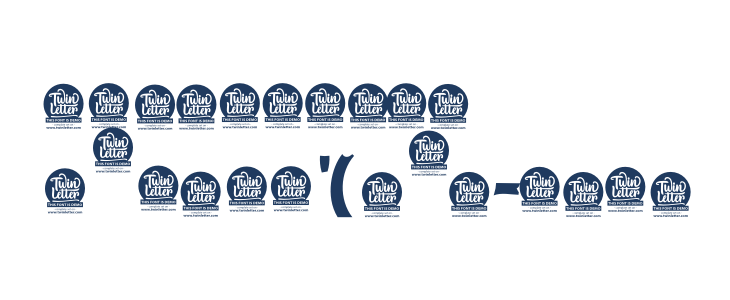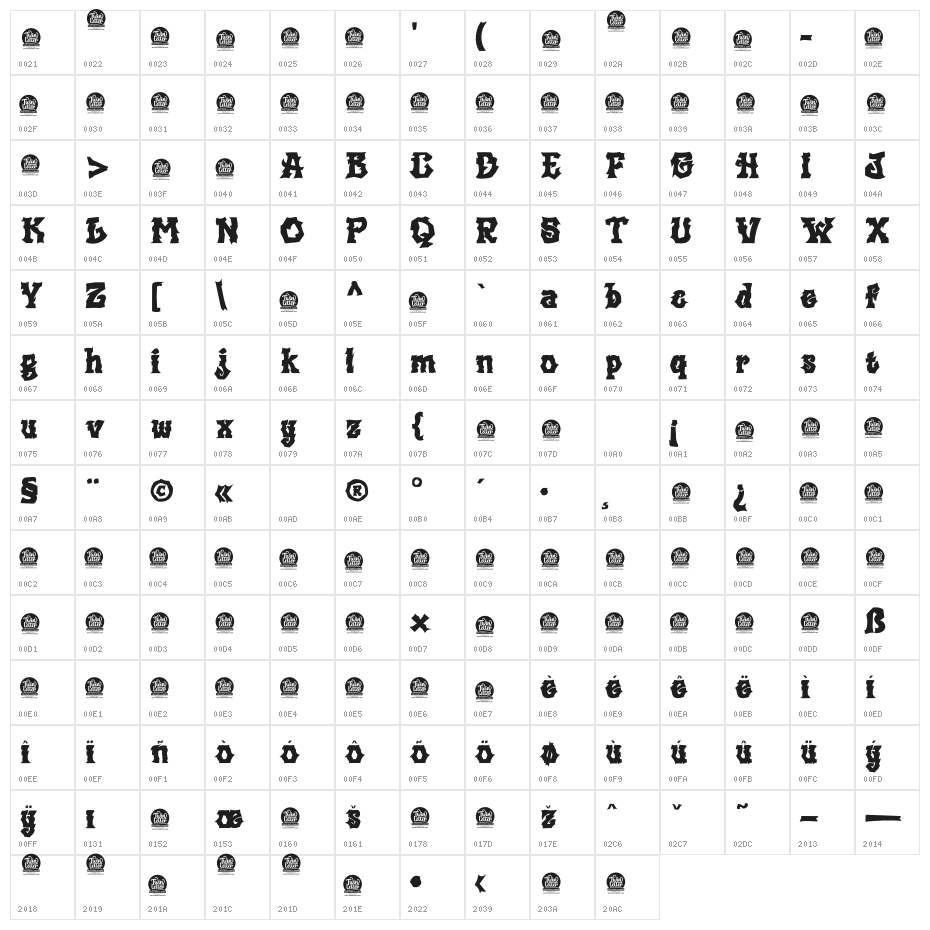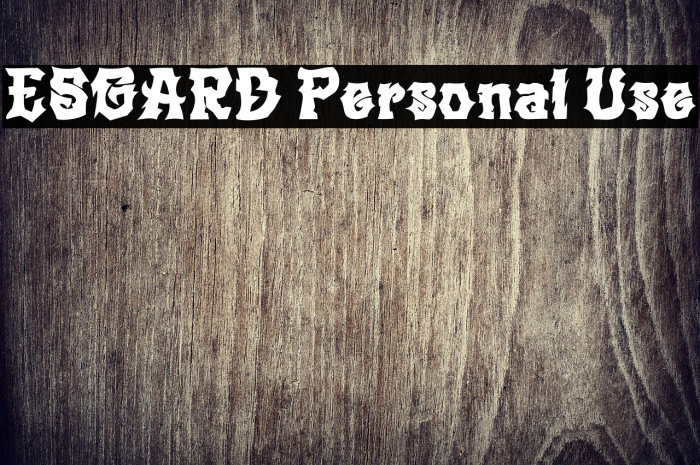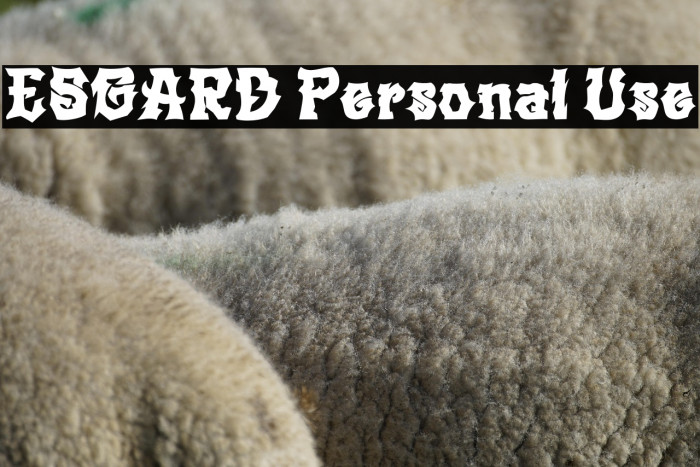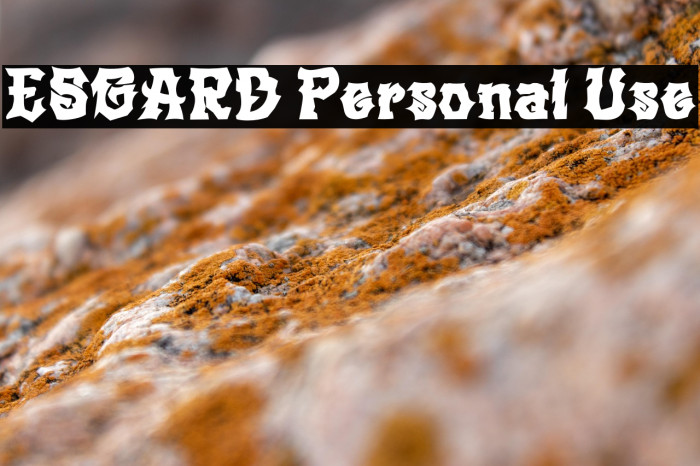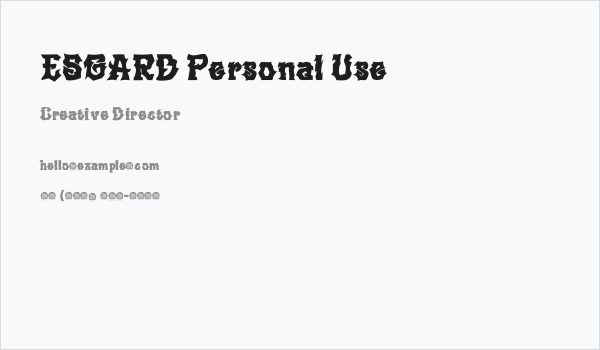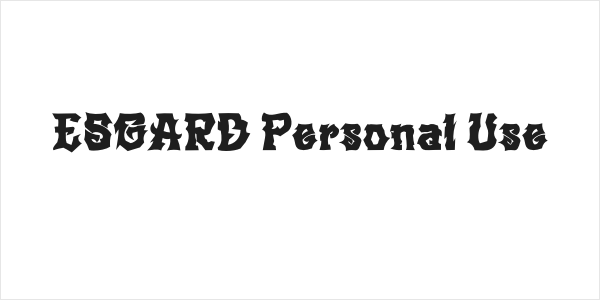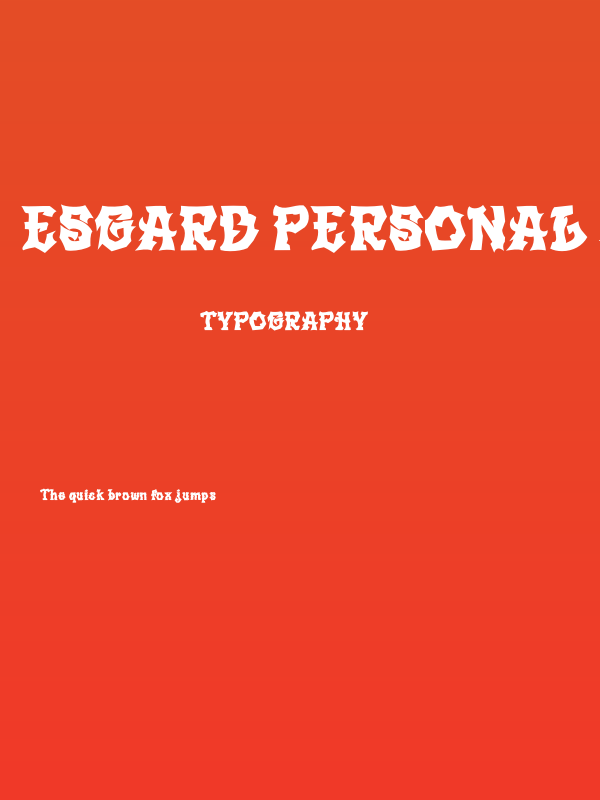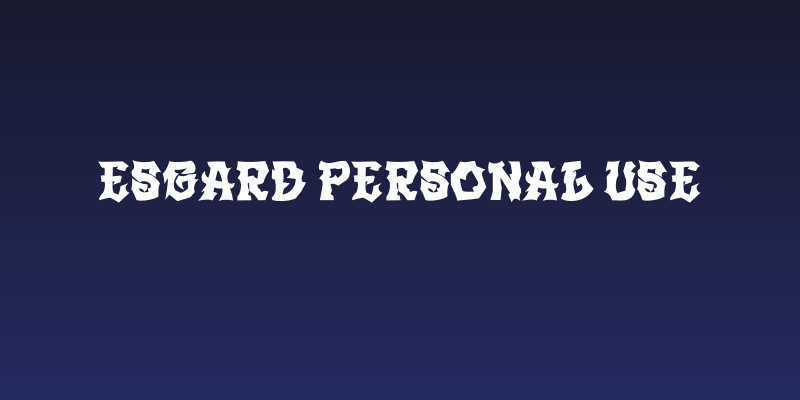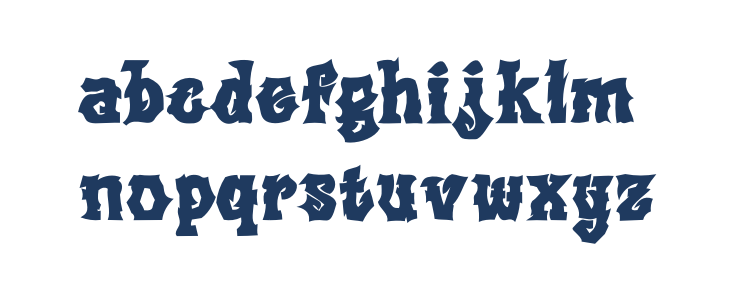
ESGARD Personal Use Font
ESGARD Personal Use Description
This font features a bold and striking design with sharp, angular edges and a gothic-inspired aesthetic. The uppercase letters are particularly dramatic, with exaggerated serifs and a heavy weight that commands attention. The lowercase letters maintain the same boldness but offer a slightly more fluid form, providing a nice contrast to the rigid uppercase. The numbers and special characters are consistent with the overall style, ensuring a cohesive look across all text. This font is ideal for projects that require a strong visual impact and a touch of medieval or fantasy flair.
| Overall Style | Gothic, Decorative |
| Proposed Projects | Ideal for fantasy book covers, video game titles, posters, and branding that requires a strong, dramatic presence. |